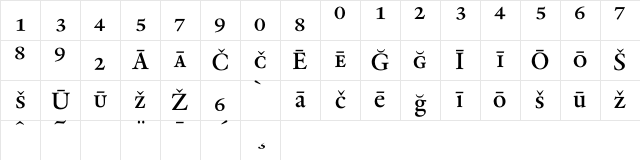
RenardNo1 RomanPi
Style: RomanPi
Design Context for RenardNo1
RenardNo1 is a composed and adaptable typeface that performs quietly and consistently across a wide range of design contexts.